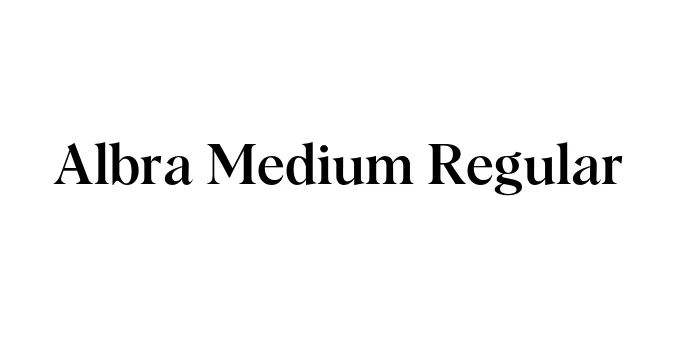
Albra Medium Regular
Designed by BumbumType
| Similar Fonts | Caslon, GT Super, Recoleta, ITC Clearface |
Albra Medium Regular is a sophisticated serif typeface designed by the foundry BumbumType. It strikes a perfect balance between timeless elegance and modern functionality, featuring high-contrast strokes and sharp terminals that give it a distinctive, high-end editorial appearance. The typeface is part of the larger Albra collection, which was meticulously crafted to handle both delicate headlines and readable body text with equal grace.
Drawing inspiration from classic 20th-century serifs, Albra Medium Regular incorporates contemporary design sensibilities to ensure clarity in digital environments. Its versatile nature makes it a favorite among graphic designers for luxury branding, fashion magazines, and sophisticated web layouts. The medium weight offers enough presence to be used in striking titles while maintaining the legibility required for longer passages of text.
Albra Medium Regular Best Uses
Perfect for magazines, books, and long-form articles that require a touch of class.
Ideal for luxury brands, high-end logos, and sophisticated corporate identities.
Creates a strong, premium visual impact on landing pages and digital portfolios.
Works beautifully on high-end invitations, business cards, and printed ephemera.